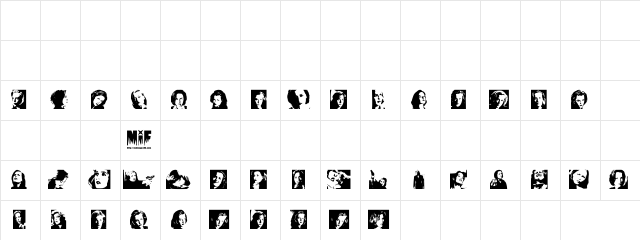
Scully Regular Free Font
Scully Regular
Design Context for Scully
Scully is a composed and adaptable typeface that performs quietly and consistently across a wide range of design contexts.